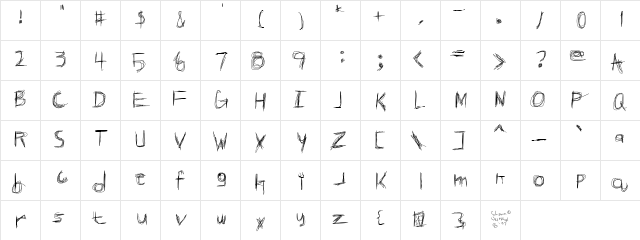
Broken Phone Nails Regular Font Preview
Broken Phone Nails Regular
Broken Phone Nails Regular Font Details
Design Context for Broken Phone Nails Typeface
Broken Phone Nails is a composed and adaptable typeface that performs quietly and consistently across a wide range of design contexts.